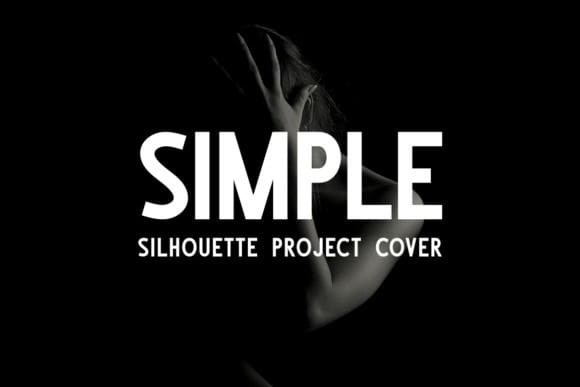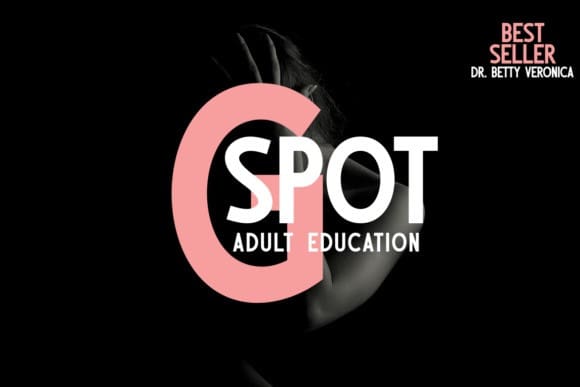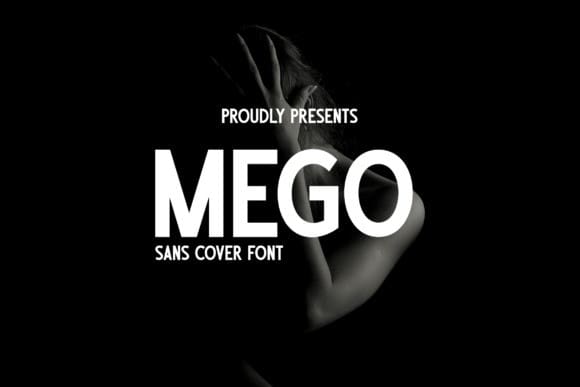
Mego Font
Mego Font is a bold and assertive sans serif font. No matter the topic, this font will be an incredible asset to your fonts’ library, as it has the potential to elevate any creation.